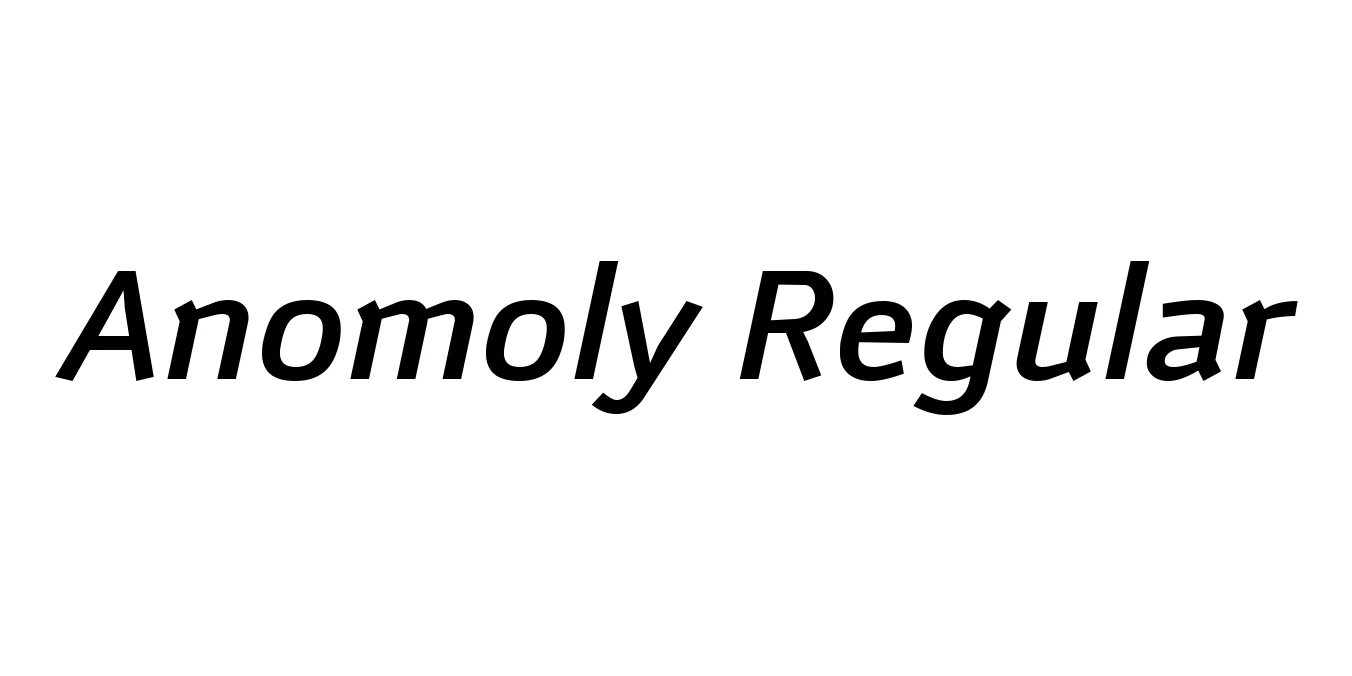
Anomoly Regular
Designed by Koczman Bálint (Magyar Fonts)
| Category | Display / Sans Serif |
| Designer | Koczman Bálint (Magyar Fonts) |
Anomoly Regular is a contemporary display typeface characterized by its geometric construction and futuristic aesthetic. It was designed to bridge the gap between architectural precision and digital innovation, offering sharp angles and clean, wide letterforms that command attention. The font's structure is rooted in modernism, making it an excellent choice for projects that require a bold, tech-forward presence without sacrificing readability in large-scale formats.
Over time, Anomoly has become a popular selection for designers working in the science fiction and gaming genres. Its unique visual rhythm and wide stance provide a sense of stability and motion, ensuring it stands out in both print and digital media. Whether it is used for high-impact branding or atmospheric title sequences, the typeface delivers a sophisticated and professional look that is synonymous with cutting-edge design and industrial style.
Anomoly Regular Best Uses
Ideal for creating strong, memorable brand identities for tech and automotive companies.
Perfect for heads-up displays (HUDs) and main menu typography in futuristic video games.
Excellent for bold, attention-grabbing titles in magazines, posters, and web banners.
Highly effective for software interfaces and application landing pages.